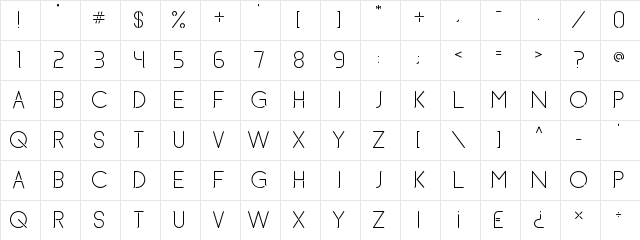
Brett and Beer Regular
Design Context for Brett and Beer
Brett and Beer is a composed and adaptable typeface that performs quietly and consistently across a wide range of design contexts.